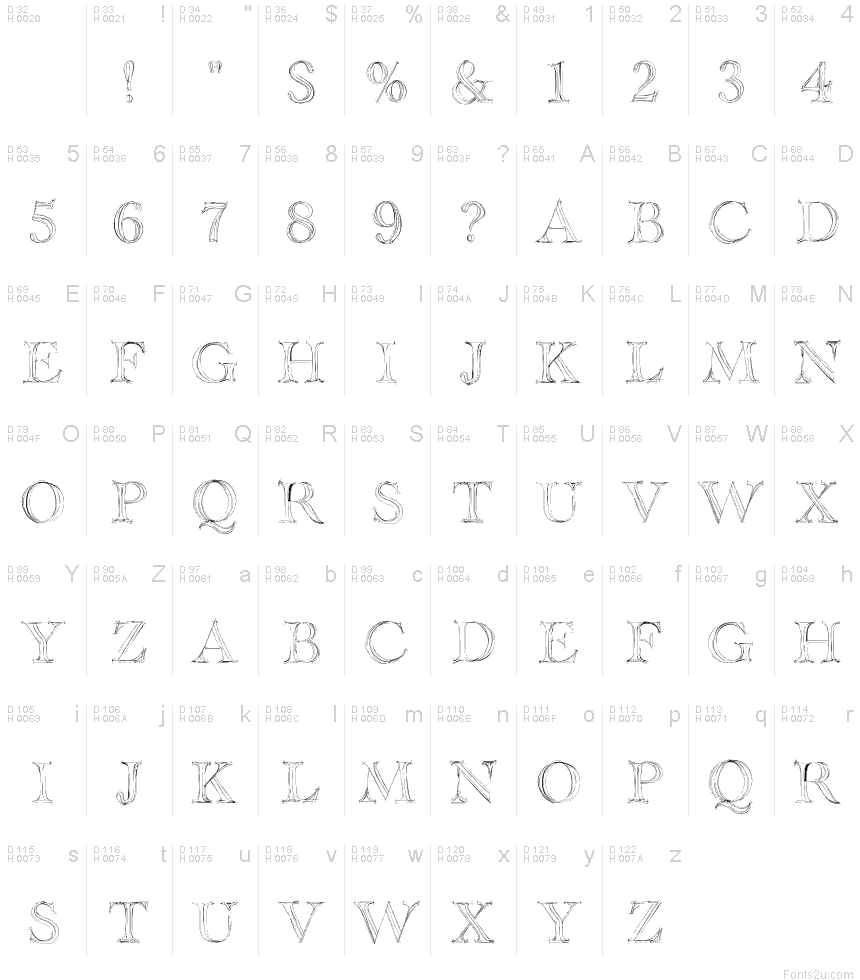
Haityfont by Federal is a free decorative display font with stately, high-contrast capitals and a fashion-editorial air. Fine duplicate contours and small drafting marks trace the letter shapes, giving the refined serif forms the look of an architect's working sketch.
Fashion and luxury themes are its clearest territory, especially on perfume packaging and magazine covers. Its elegance still carries an intentionally unfinished edge. That drafting motif also suits formal invitation suites and cultural event posters, where typography can echo early sketches, pattern cutting, and other images of design in progress.